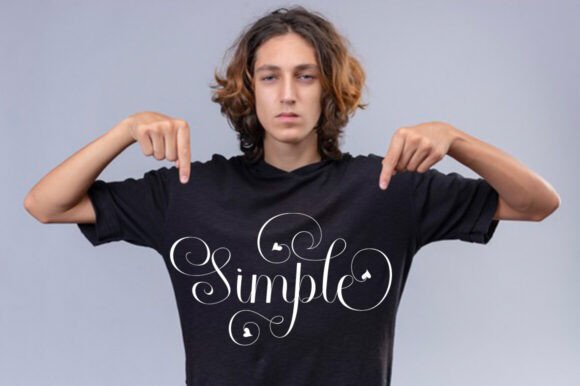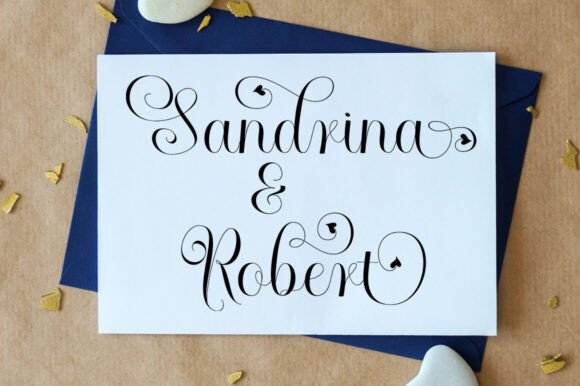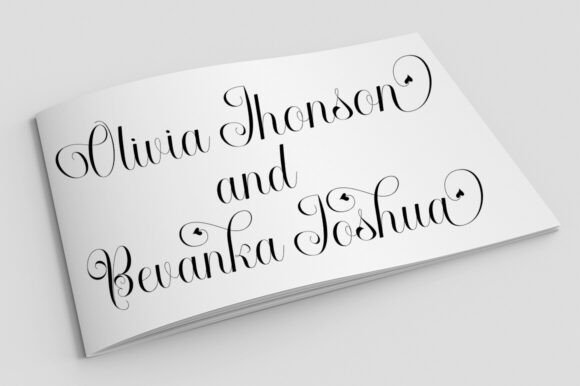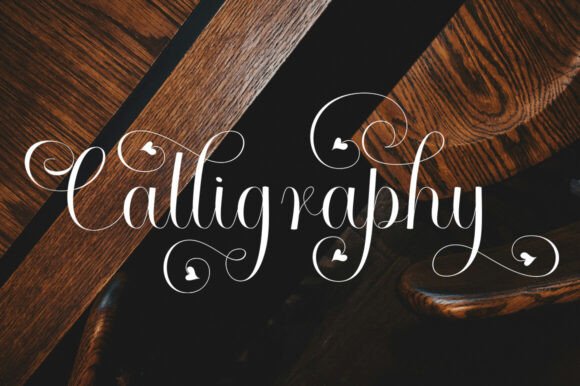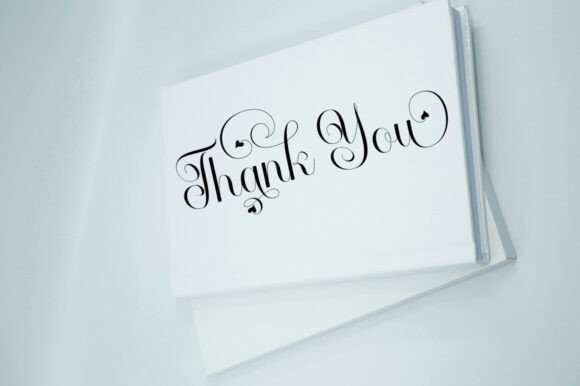
The Angelina Script Font: A Modern Calligraphy Dream
I’ll never forget the moment I stumbled upon the perfect font for a wedding invitation project. I was on a tight deadline, and my client was being super picky about the design. I had tried countless fonts, but none seemed to capture the elegance and whimsy she was looking for. That was until I discovered the Angelina Script Font. ✨
As soon as I saw it, I knew I had found “the one.” The irregular baseline, the flowing connections, and the trendy, feminine vibe all screamed “wedding invitation perfection.” But I soon realized that this font was more than just a one-trick pony. It’s a versatile, modern script calligraphy font that can elevate any design project.
So, what do I love about the Angelina Script Font? Here are a few things that make it stand out:
- ✅ Unique and trendy design: The irregular baseline and flowing connections give it a distinctive, modern look.
- ✅ Feminine and elegant: Perfect for wedding invitations, thank you cards, and other feminine designs.
- ✅ OpenType features: Includes initial and terminal letters, alternates, ligatures, and multiple language support.
- ✅ Versatile: Works beautifully in ink or watercolour designs.
- ⚠️ Some letters may require manual kerning: As with any script font, you may need to adjust the kerning to get the perfect spacing.
- 🤔 Not suitable for body text: This font is best used for headlines, titles, and short paragraphs.
The Story Behind Angelina Script Font
The Angelina Script Font was designed with the modern creative in mind. Its creator wanted to craft a font that was both elegant and trendy, with a unique irregular baseline that would add visual interest to any design. The result is a font that’s perfect for wedding invitations, thank you cards, and other special projects.
| What is the Angelina Script Font? | The Angelina Script Font is a modern script calligraphy font with an irregular baseline, perfect for wedding invitations, thank you cards, and other special projects. |
| Is the Angelina Script Font suitable for body text? | No, this font is best used for headlines, titles, and short paragraphs. |
| Does the Angelina Script Font include OpenType features? | Yes, this font includes initial and terminal letters, alternates, ligatures, and multiple language support. |